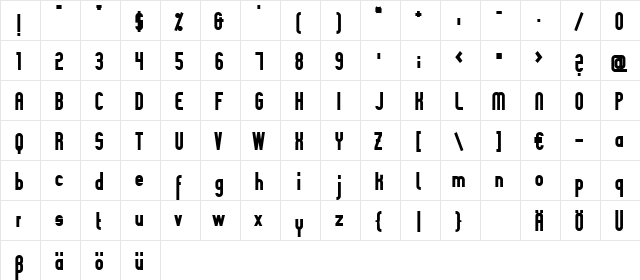
Slimaniabold Black
Design Context for Slimaniabold Typeface
Slimaniabold offers clean, dependable letterforms without strong stylistic allegiance, making it a practical choice for designers who need flexibility. The heavy weight commands attention and anchors typographic hierarchies.